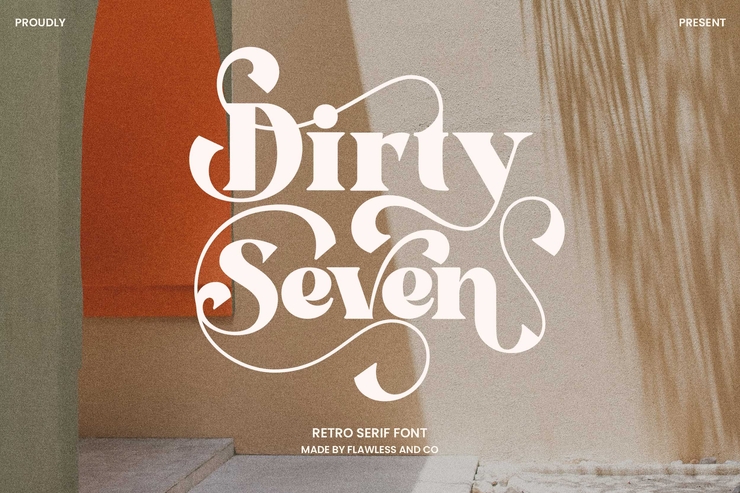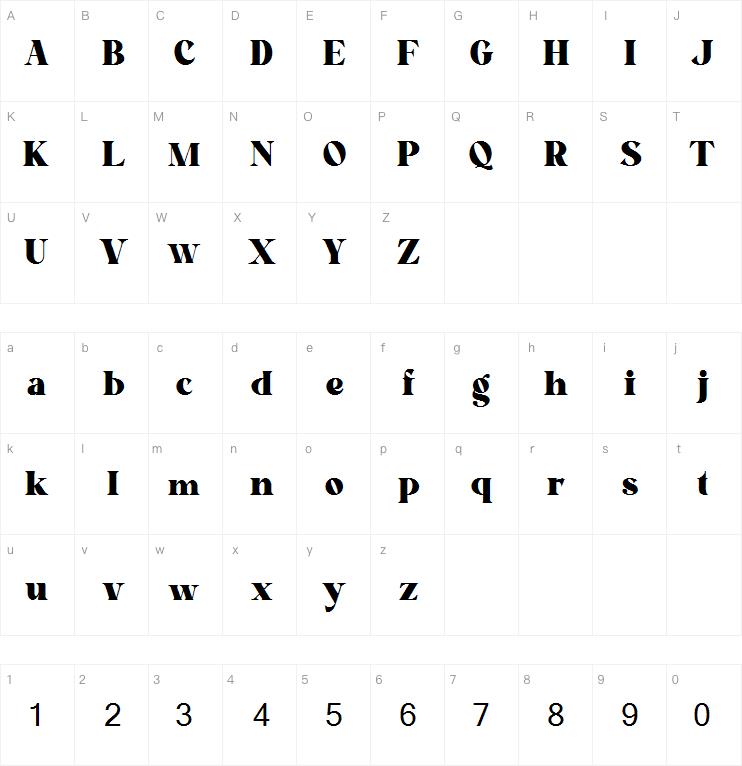
Dirty Seven is an elegant English font featuring modern fashion, trendy style and futuristic tech aesthetics. Coming in standard TTF font format, this typeface is specially optimized for headline text design.Versatile and practical, Dirty Seven font is widely used in posters, brand logos, media visuals, advertising campaigns and all kinds of creative promotional projects. With sleek elegant glyphs and a cool tech vibe, it is an ideal choice for graphic designers, brand marketing and visual content creation.
Looking for a stylish, trendy, and tech-savvy English font that stands out? Our Dirty Seven font is designed to blend modern fashion aesthetics with cutting-edge tech vibes, perfect for elevating your design projects to the next level. Whether you’re working on branding, social media graphics, website designs, digital art, marketing materials, or creative layouts—this font adds a unique, contemporary edge that captures attention.
No design expertise required! The Dirty Seven font is easy to install and compatible with all major design software (Adobe Photoshop, Illustrator, Canva, Microsoft Word, and more). It features smooth lines, bold character details, and a sleek finish that embodies both fashion-forward style and tech-inspired elegance—ideal for designers, content creators, marketers, and anyone looking to add a modern touch to their work.